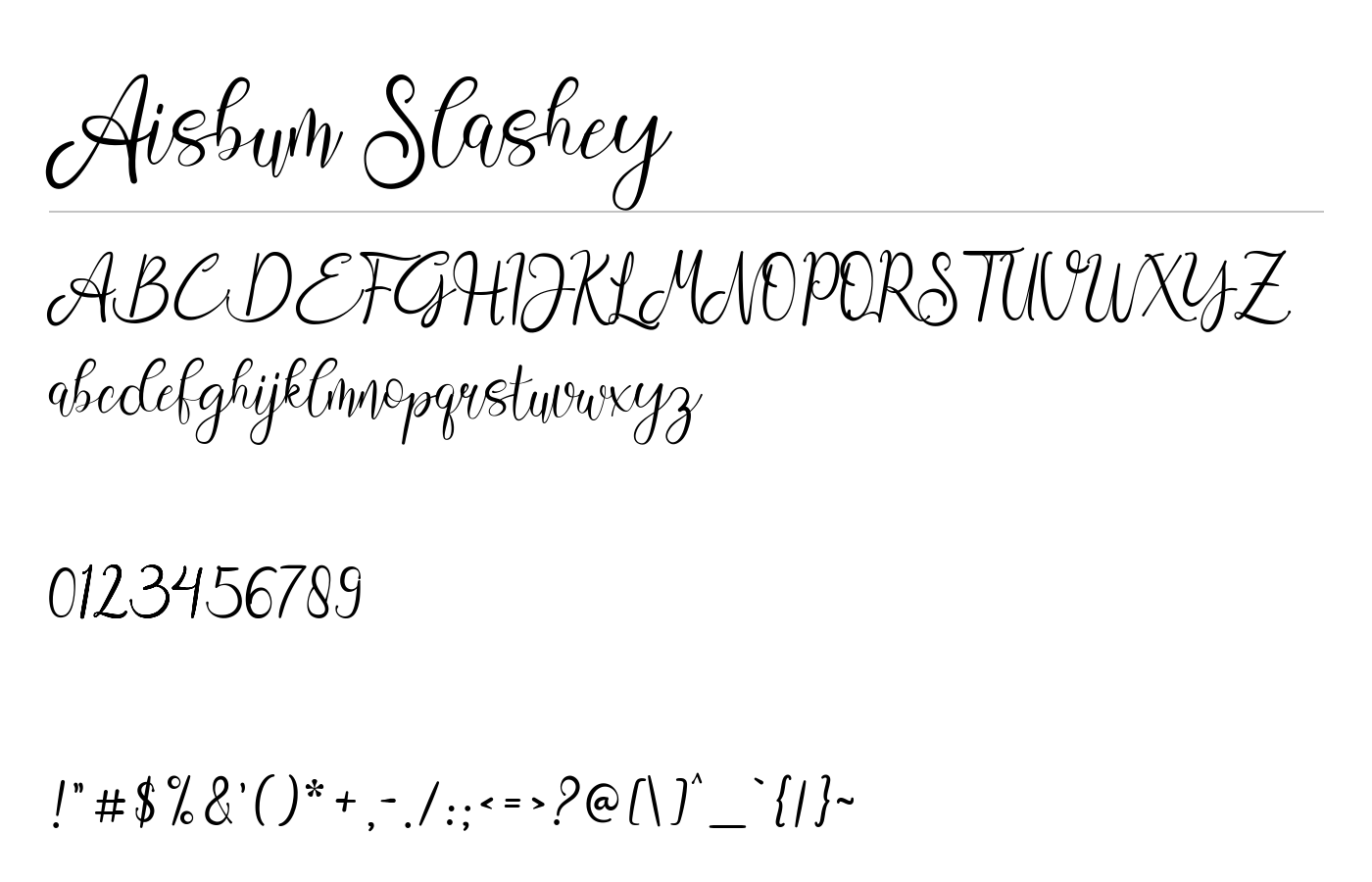
Aisbum Slashey is an elegant handwritten script font with delicate, flowing strokes and a light, airy feel. Its graceful letterforms feature a mix of smooth curves and subtle flourishes, making it perfect for feminine, romantic, or sophisticated designs. Ideal for invitations, branding, and stylish headlines, this font adds a personal, artistic touch while maintaining readability.
Aisbum Slashey Font
About Aisbum Slashey Font